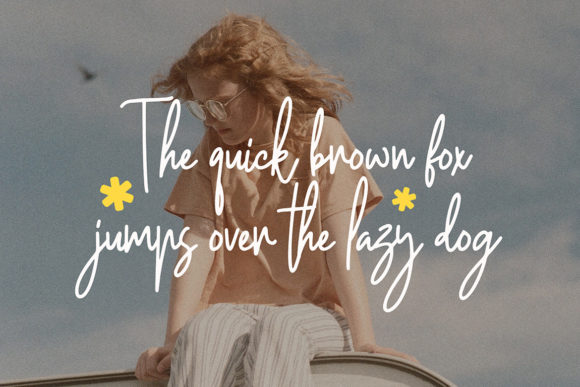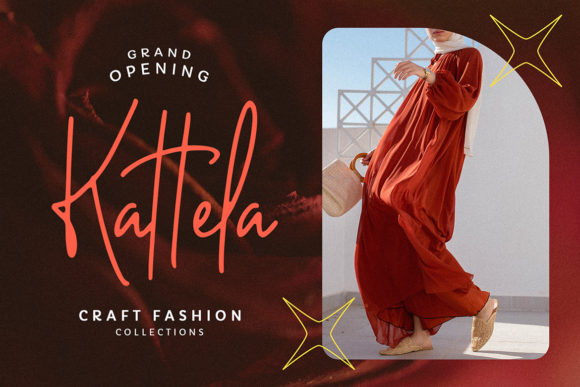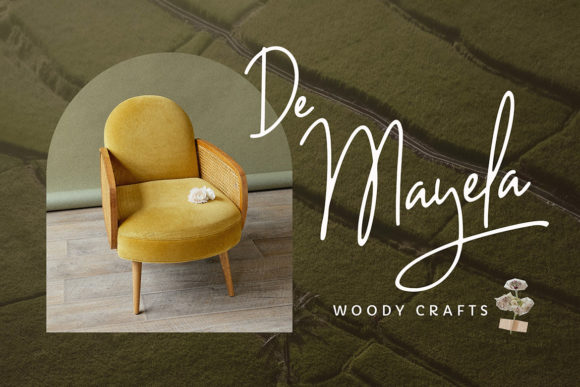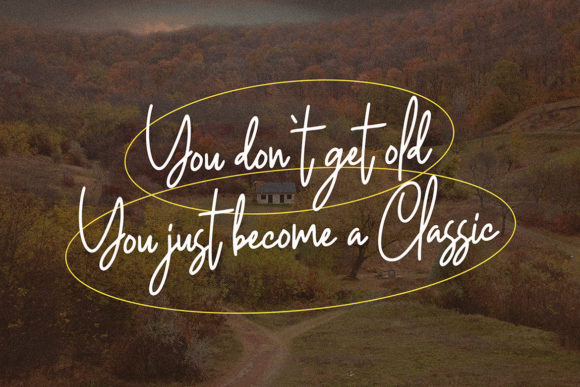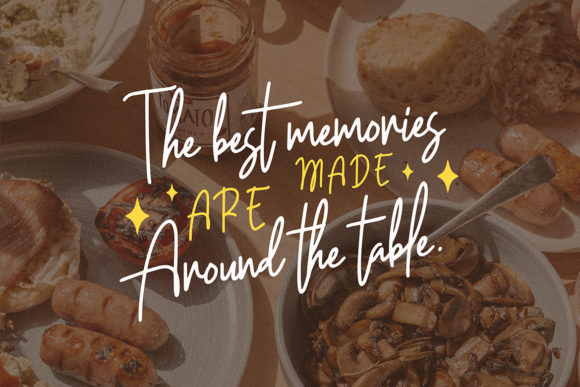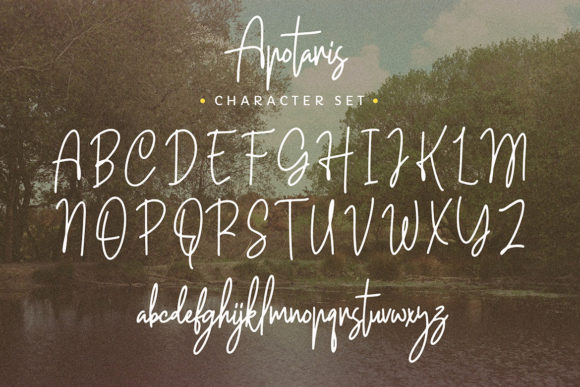
Introducing Apotaris Font: Elevate Your Designs with Elegance and Sophistication
In the world of typography, fonts play a crucial role in conveying the tone and personality of a design. For designers and crafters seeking to add a touch of style and class to their creations, Apotaris Font is an excellent choice. This lovely and relaxed script font is specifically designed to bring a refreshing look to your designs, making it perfect for a wide range of projects.
The Beauty of Apotaris Font
Apotaris Font boasts a unique and elegant design that exudes sophistication and refinement. Its relaxed script style makes it easy to read and understand, while its beautiful letterforms add a touch of luxury to any design. Whether you’re working on a branding project, creating wedding invitations, or designing social media graphics, Apotaris Font is sure to impress.
Key Features of Apotaris Font
- Lovely and Relaxed Script Style: Apotaris Font features a beautiful, flowing script style that’s perfect for creating elegant and refined designs.
- Highly Readable: The font’s clear and concise letterforms make it easy to read, even at smaller sizes.
- Versatile: Apotaris Font is suitable for a wide range of design projects, from branding and advertising to wedding invitations and social media graphics.
Who Can Benefit from Apotaris Font?
Apotaris Font is an excellent choice for designers, crafters, and businesses looking to add a touch of elegance and sophistication to their designs. This font is particularly useful for:
- Graphic Designers: Apotaris Font is perfect for creating stunning branding materials, such as logos, business cards, and brochures.
- Wedding Planners and Stylists: This font is ideal for creating beautiful wedding invitations, stationery, and other wedding-related materials.
- Social Media Managers: Apotaris Font can add a touch of class and sophistication to social media graphics, making your brand stand out.
- Crafters and Makers: This font is suitable for creating labels, packaging, and other materials for handmade products.
Tips for Using Apotaris Font
To get the most out of Apotaris Font, here are some tips to keep in mind:
- Pair with Other Fonts: Combine Apotaris Font with other fonts to create a unique and visually appealing design.
- Experiment with Colors: Try out different color combinations to find the perfect match for your design.
- Pay Attention to Spacing: Make sure to adjust the spacing between letters and words to create a clean and elegant look.
Apotaris Font is a beautiful and refreshing script font that’s perfect for designers and crafters seeking to add a touch of style and class to their designs. With its lovely and relaxed script style, high readability, and versatility, this font is sure to become a staple in your design toolkit. Whether you’re working on a branding project, creating wedding invitations, or designing social media graphics, Apotaris Font is an excellent choice.